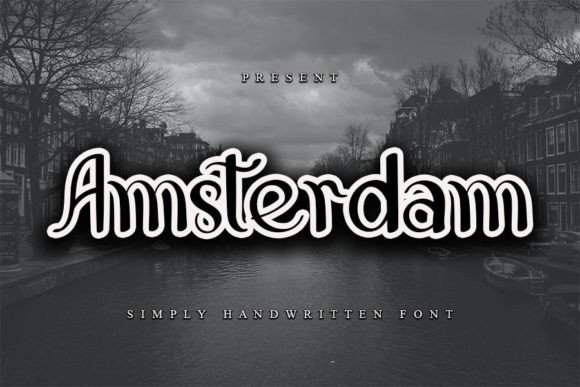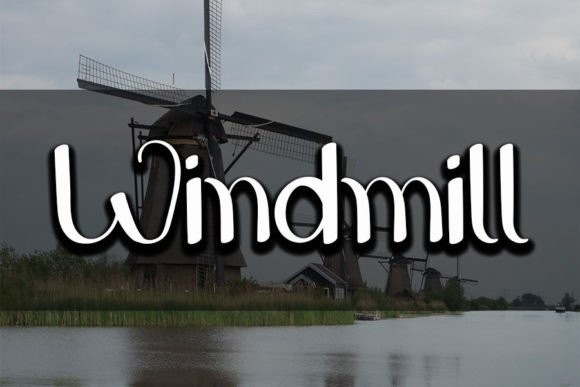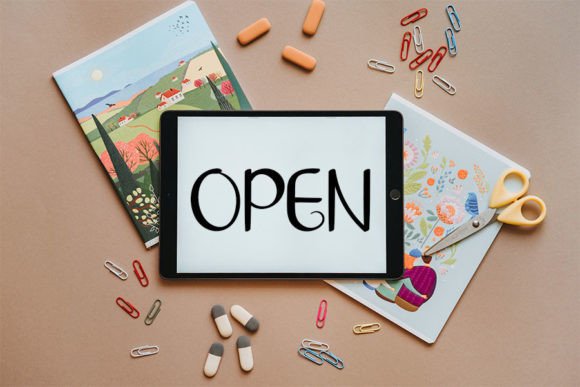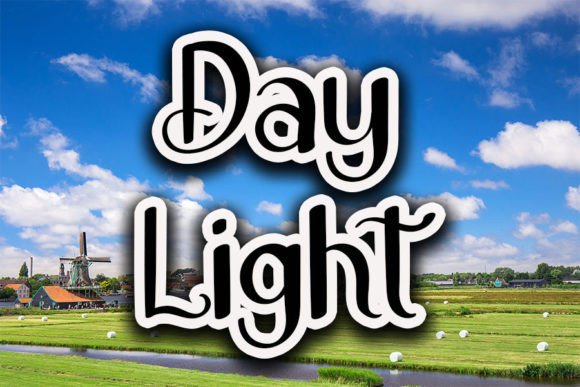
About Amsterdam Font
Amsterdam, with its slender and delicate strokes, emerges as a graceful handwritten font. Infused with a sense of daintiness and joy, this font presents an ideal choice for projects requiring a romantic and personalized touch, particularly suited for crafting enchanting wedding invitations and heartwarming cards.
The font’s slim design imparts a sense of elegance, making it well-suited for capturing the essence of special occasions. As the strokes dance across the digital or physical canvas, they evoke a feeling of sophistication and charm. The delicate nature of Amsterdam lends itself beautifully to the creation of wedding invitations, where each letter contributes to the overall sentiment of romance and celebration.
For cards that convey sentiments from the heart, Amsterdam becomes a storyteller, weaving words with an artistic flair. Its joyful demeanor adds a touch of warmth to the messages, turning simple words into heartfelt expressions. Whether used for birthday cards, thank-you notes, or love letters, the font’s personalized and handwritten aesthetic elevates the emotional resonance of the content.
In a world where individuality is treasured, Amsterdam stands out as a font that brings a unique and intimate quality to designs. Its romantic undertones make it versatile for various creative projects where a personalized touch is desired. Imagine the font gracing a love-themed social media post or being the signature touch on custom-made stationery—each application enhancing the visual appeal with a distinct and tender charm.
Amsterdam is not just a typeface; it’s a design tool that adds a layer of sentiment and personality to your creations. It transforms the act of writing into an art form, making every word feel carefully chosen and meaningful. Its delicate strokes, combined with an inherent joyfulness, create a harmonious blend that is both visually pleasing and emotionally resonant.
So, whether you are a designer aiming to infuse romance into your creations or an individual seeking to add a personal touch to special moments, Amsterdam emerges as the perfect companion. Its slim and delicate nature, coupled with an unmistakable joy, ensures that each project becomes a canvas for heartfelt expression and artistic beauty.